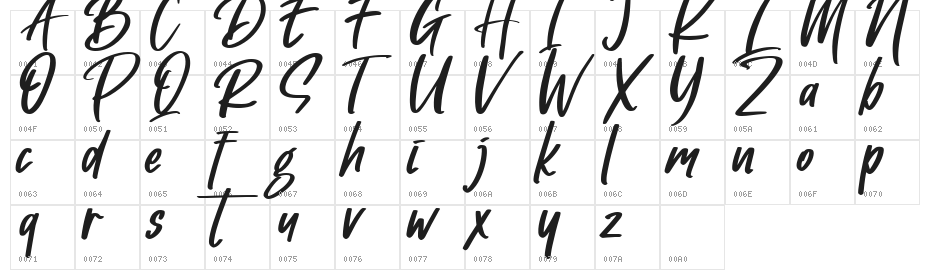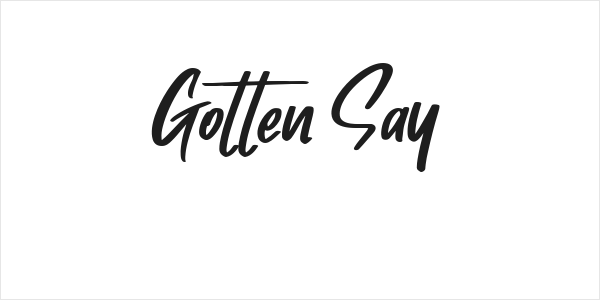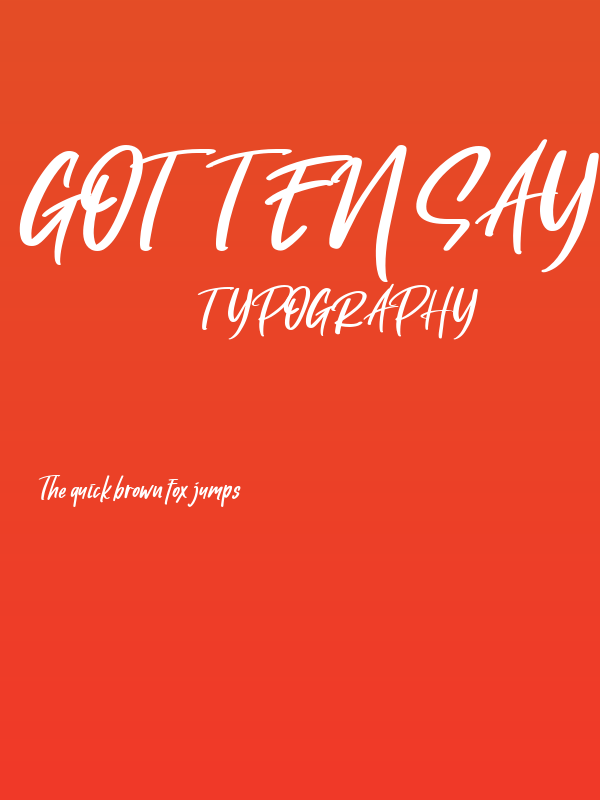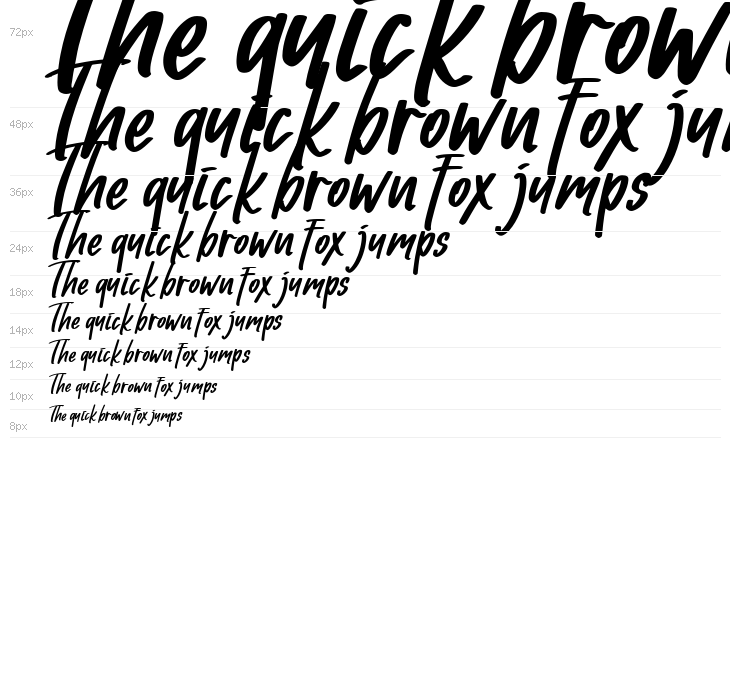
Gotten Say Font
Gotten Say Description
This font features a dynamic and expressive style, characterized by its handwritten appearance. The uppercase letters are bold and slightly slanted, giving a sense of movement and energy. The lowercase letters maintain a consistent flow, with some characters extending below the baseline, adding to its casual and artistic feel. The strokes vary in thickness, providing a medium contrast that enhances readability while maintaining a unique flair. The font's overall appearance is both modern and playful, making it suitable for creative projects.
| Overall Style | Modern, Playful |
| Proposed Projects | Ideal for branding, social media graphics, invitations, and creative posters. |